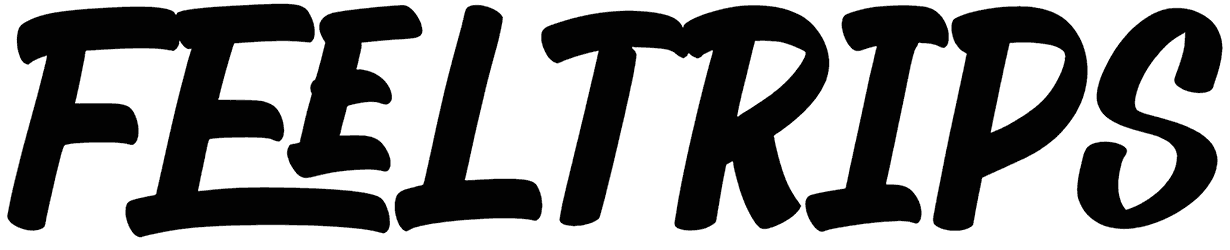
Feeltrips Font
Let’s add a fresh breath to your artwork by utilizing a magical comic font such as Feeltrips in book covers, video game posters, movie brochures, or social media posts. Since this all-caps font comes with a vibe of disorder, smudgy, and momentum, it can strongly impress the audience, especially youngsters. Considering its numerous advantages, the lack of numbers won’t be a serious problem.